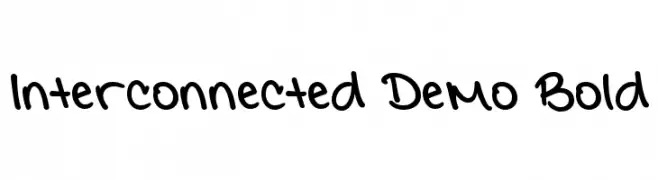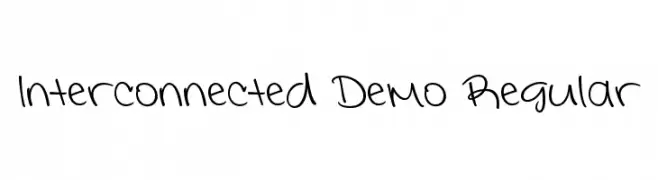
A bold, expressive handwritten font with smooth, flowing curves.
A bold, modern typeface with clean lines and geometric structure.
A bold, geometric font with strong, angular lines and a modern look.
( Fonts by dustBUST - Andreas Nylin )
A modern, geometric font with a futuristic and minimalistic design.
( Fonts by Jacob Fisher - www.pizzadude.dk )
A bold, playful font with thick, rounded characters and a whimsical style.
( Fonts by dustBUST - Andreas Nylin )
A futuristic, italicized font with geometric lines and a sleek, modern appearance.
A bold, dynamic font with jagged edges and a strong, angular appearance.
( Fonts by Graham Meade - GemFonts )
A modern, geometric font with smooth, rounded edges and consistent structure.
A bold, outlined font with a dynamic, comic-inspired style.
A bold, dynamic font with sharp, jagged edges and an aggressive style.
A bold, jagged, and condensed font with an energetic and aggressive style.
( Fonts by Iconian Fonts - Daniel Zadorozny )
A bold, distressed font with a rugged, vintage style.
( Fonts by www.phantompower.de )
A bold, geometric font with a modern and uniform design.
( Fonts by Buddha Graphix - buddha.graphix.dk/fonts.html )
A glitch-inspired font with a digital, pixelated aesthetic.
( Fonts by Spork Thug Typography - Josh Wilhelm - www.lifewithouttaffy.com/taffy/blog )
A bold, rugged font with jagged edges and a distressed appearance, ideal for impactful designs.
( Fonts by Julio Garay )
A bold, modern font with geometric and futuristic elements.
( Fonts by SDFonts - Ritzy )
A rugged, stone-like font with a fantasy and medieval aesthetic.
( Fonts by Bartek Nowak - www.nowak.tv/fontoholic/ )
A playful, handwritten font with a lively and energetic style.
( Fonts by Graham Meade - GemFonts )
A playful, bold outline font with a comic-like, whimsical style.
( Fonts by Graham Meade - GemFonts )
A modern, geometric outline font with consistent line thickness.
An ornate, decorative typeface with intricate floral designs within each uppercase letter.
A bold, geometric font with sharp angles and a modern aesthetic.
( Fonts by Florian Bambhout - www.bambootypes.net )
A modern, geometric font with rounded edges and consistent stroke width.